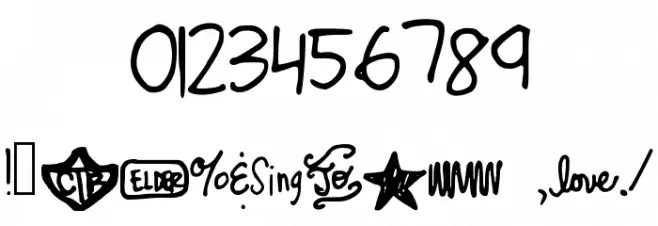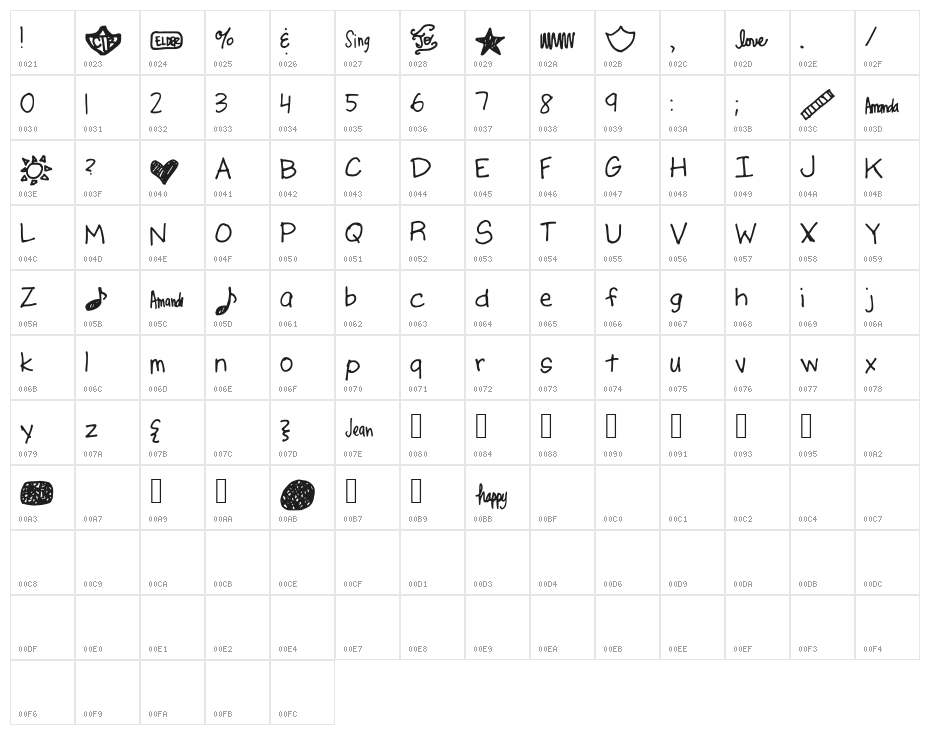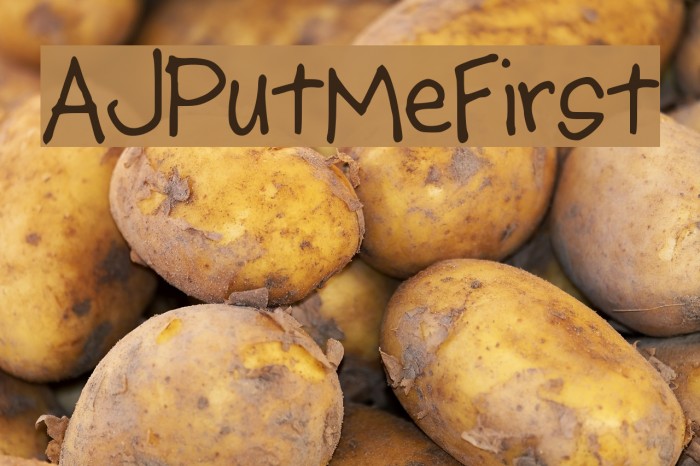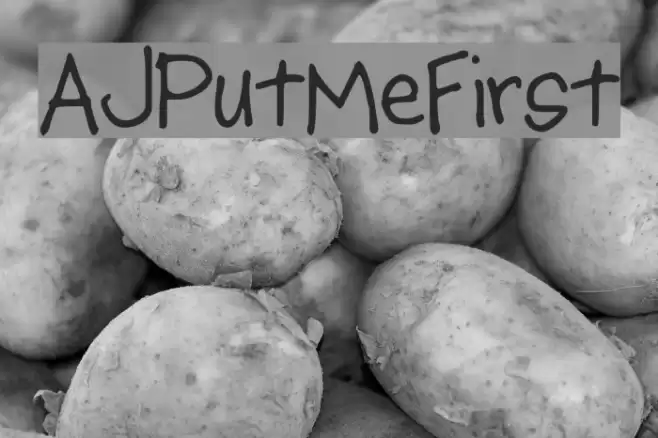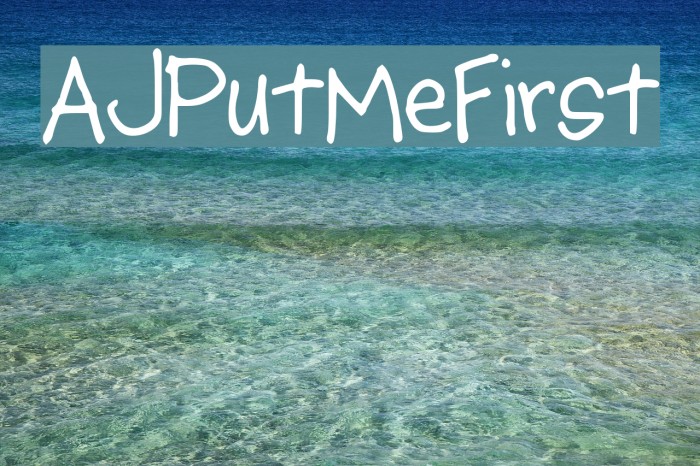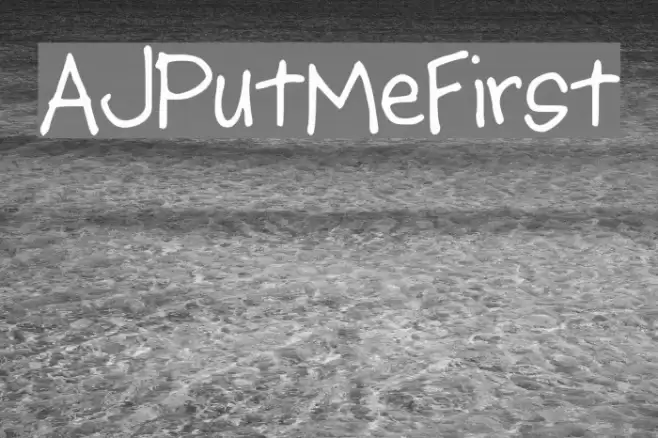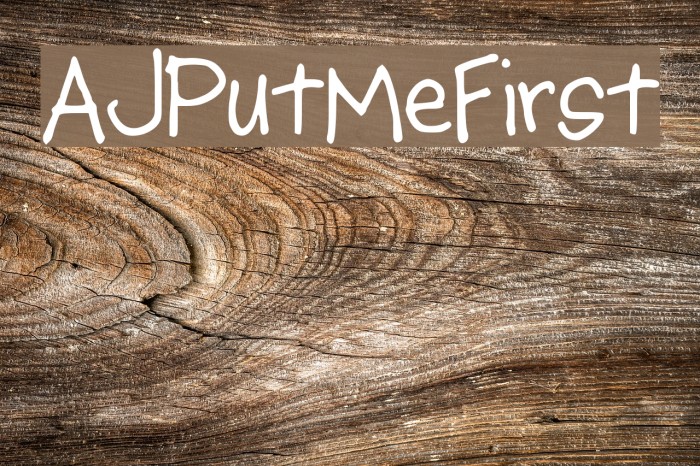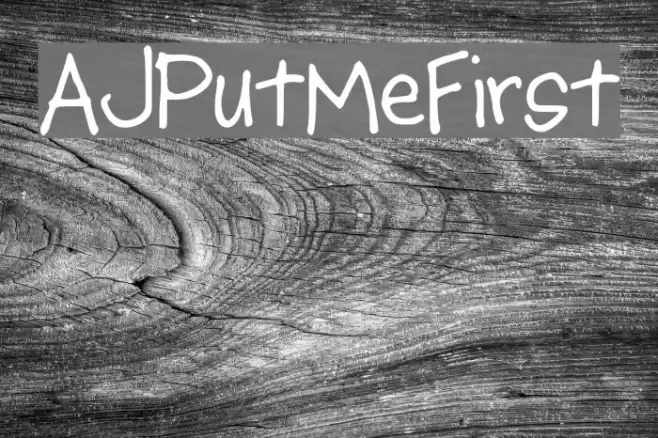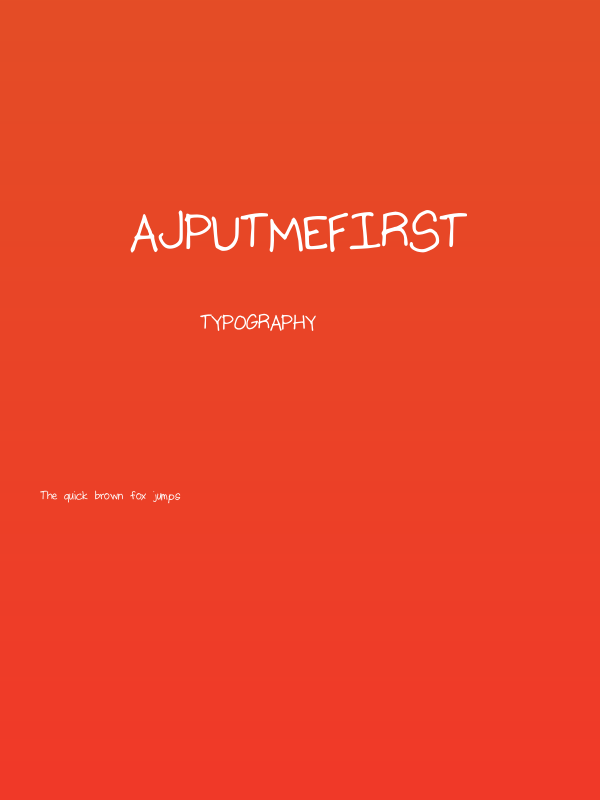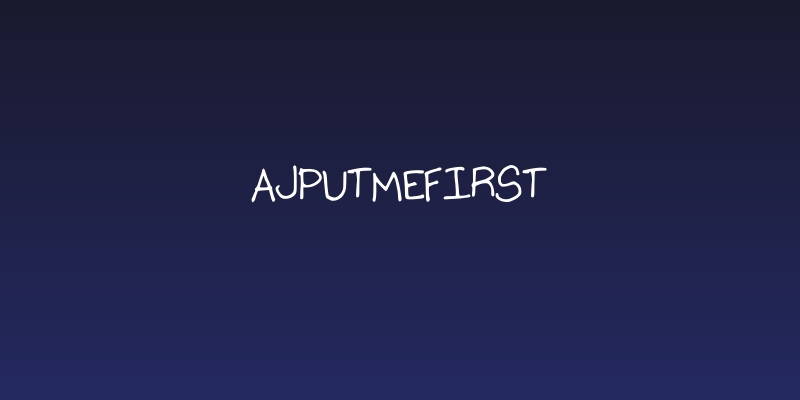
AJPutMeFirst Font
AJPutMeFirst Description
This playful and whimsical font features a handwritten style with a casual and friendly appearance. The letters have a slightly irregular shape, adding to the charm and uniqueness of the design. The uppercase and lowercase letters are well-proportioned, maintaining a consistent flow throughout. Numbers and special characters are included, each with its own quirky flair. The overall look is informal, making it suitable for creative and fun projects. The strokes are smooth and rounded, contributing to the approachable and easy-going feel of the font.
Overall StyleCasual
Use CaseHeadlines, Informal text, Creative projects
Proposed ProjectsIdeal for children's books, greeting cards, personal blogs, and creative branding.